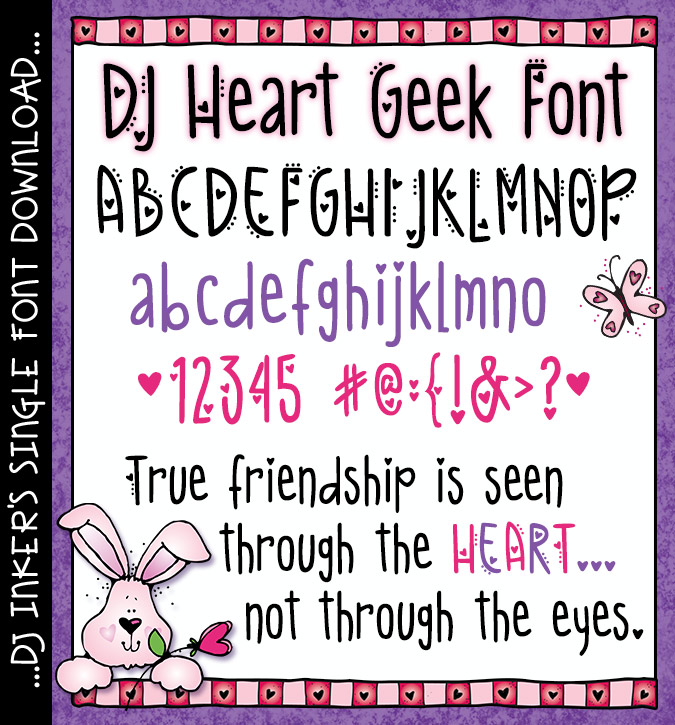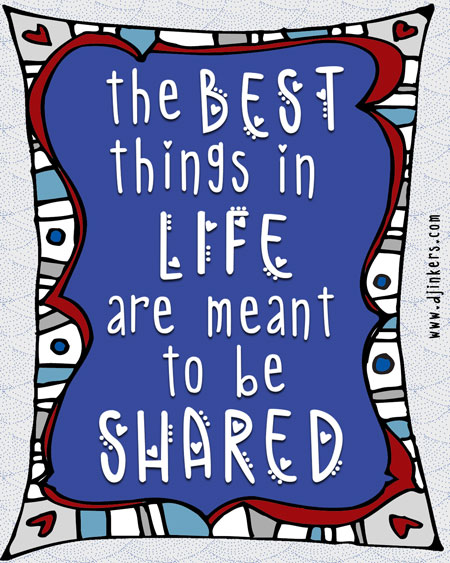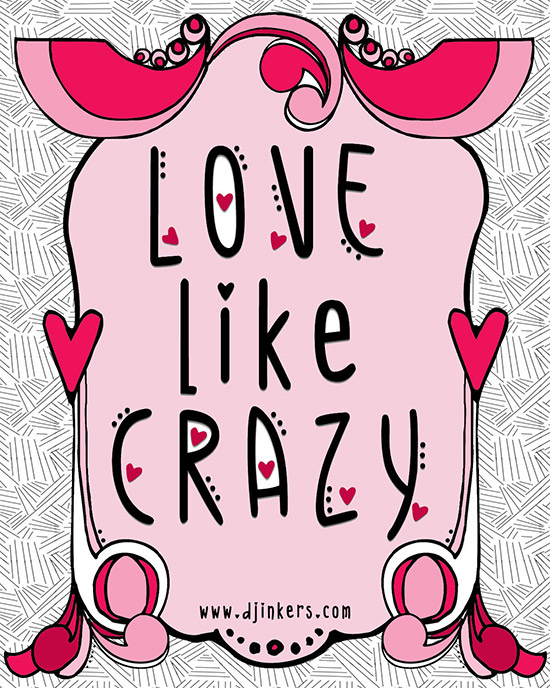
DJ Heart Geek is a lovely heart font download for Valentines, love letters, weddings & more. Designs by DJ Inkers
We've been 'geeking out' over this fun heart font! Add a little love to your lettering for Valentine's Day, love notes, crafts and smiles for your sweetheart or BFF. Looks great in any color... especially red, pink & purple.